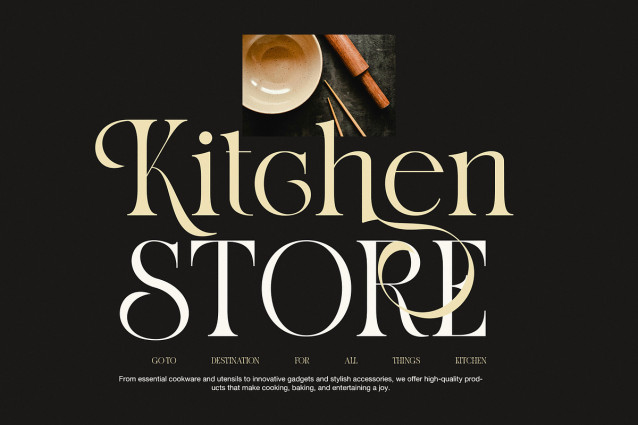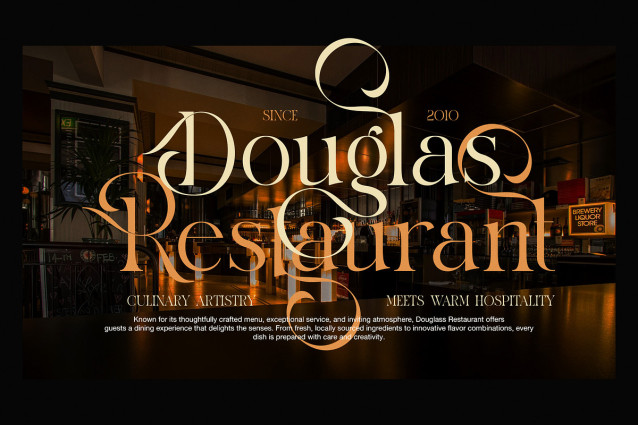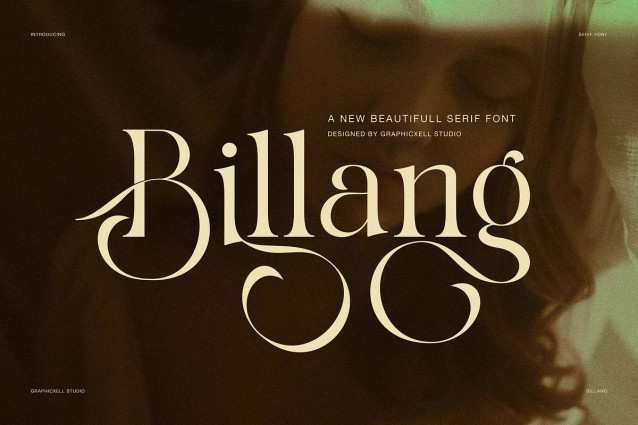
Billang Font
Billang Font is an elegant classic serif font created for refined visual design. It blends smooth curves with strong serif shapes, which gives every letter a balanced and timeless look. Because of this harmony, the font feels both classic and modern. From the first glance, Billang communicates quality and style.
Decorative Details and Smooth Flow
This serif font features graceful strokes and flowing letterforms. As a result, words appear natural and pleasing on the page. In addition, subtle decorative swashes add charm without distracting from the message. These details make Billang ideal for expressive headlines and stylish titles.
Alternate Characters for Creative Freedom
Billang includes alternate characters that help designers shape unique typography. With these options, you can adjust the mood of your design while keeping a consistent look. At the same time, the default characters remain clean and readable. Therefore, the font works well for both display and supporting text.